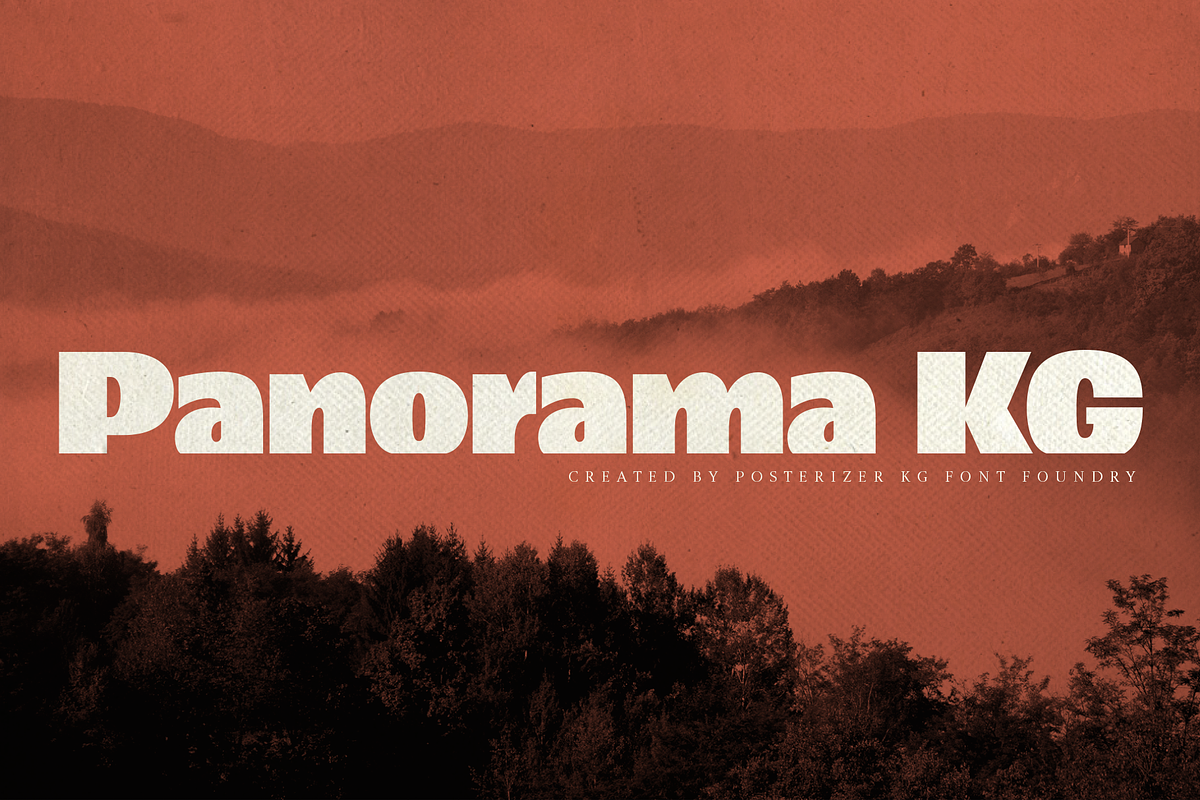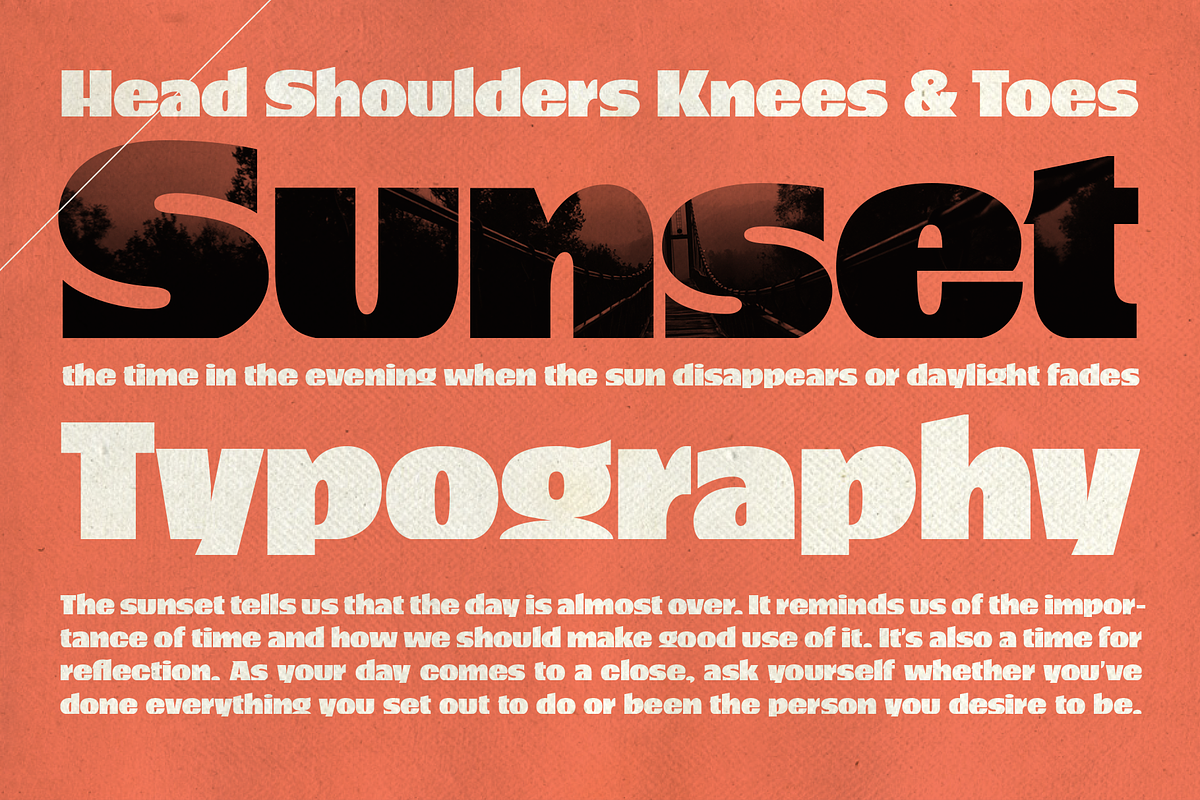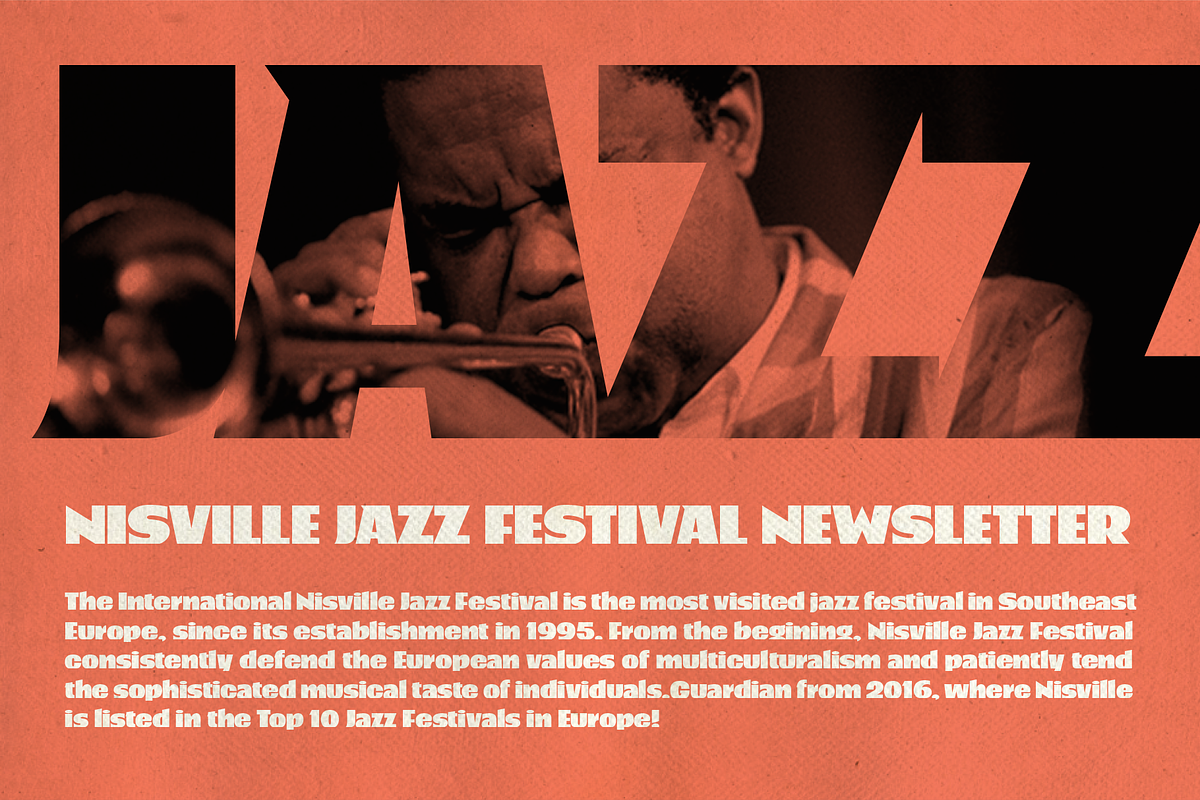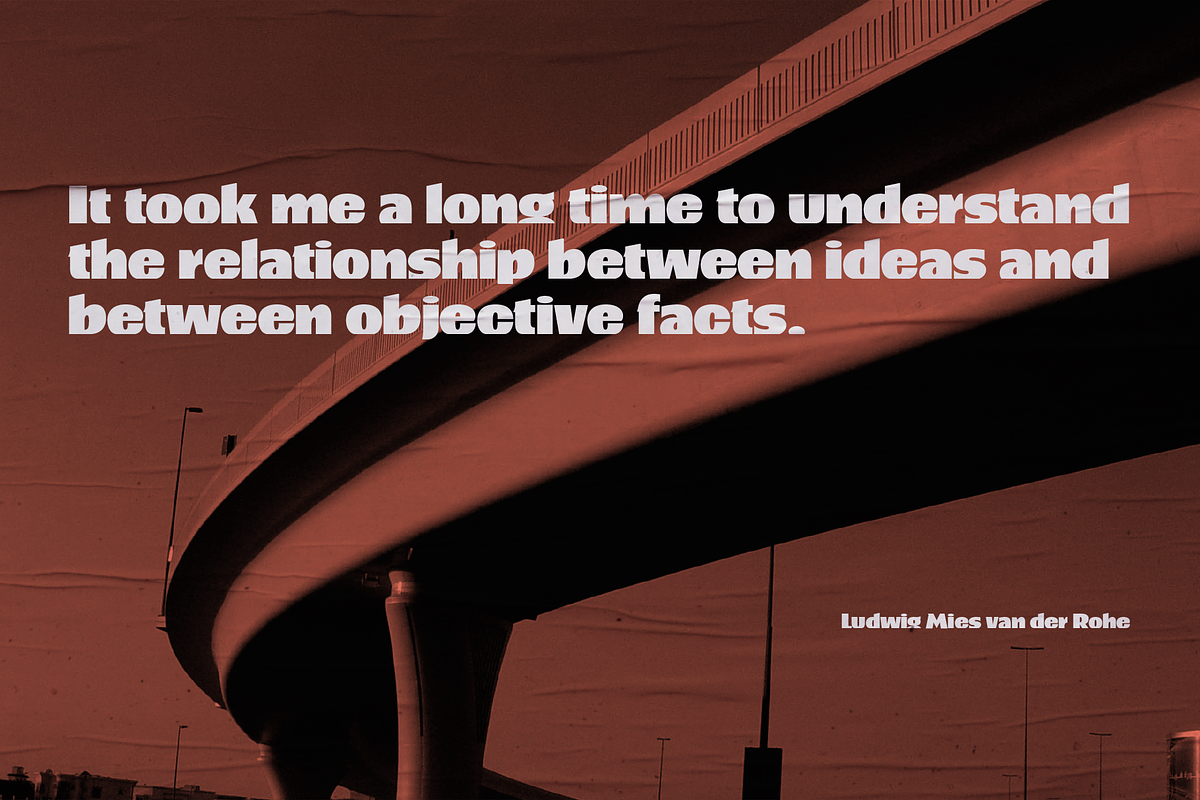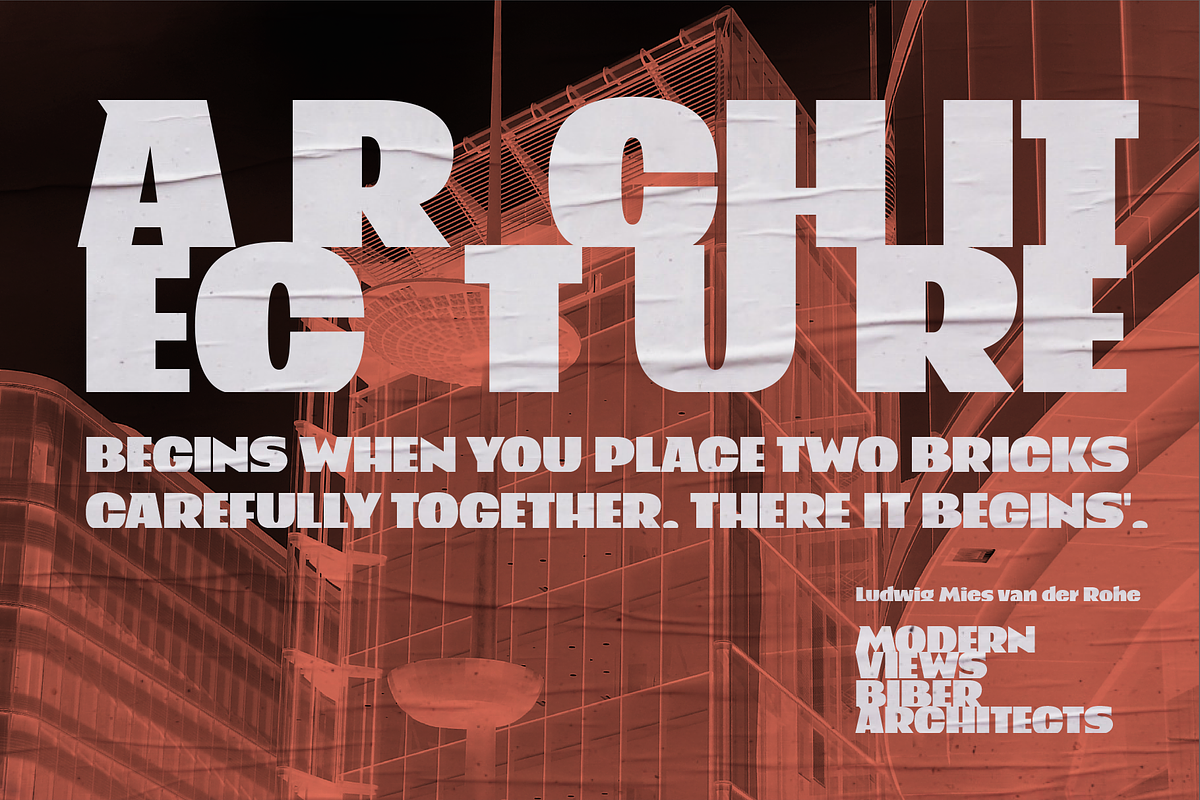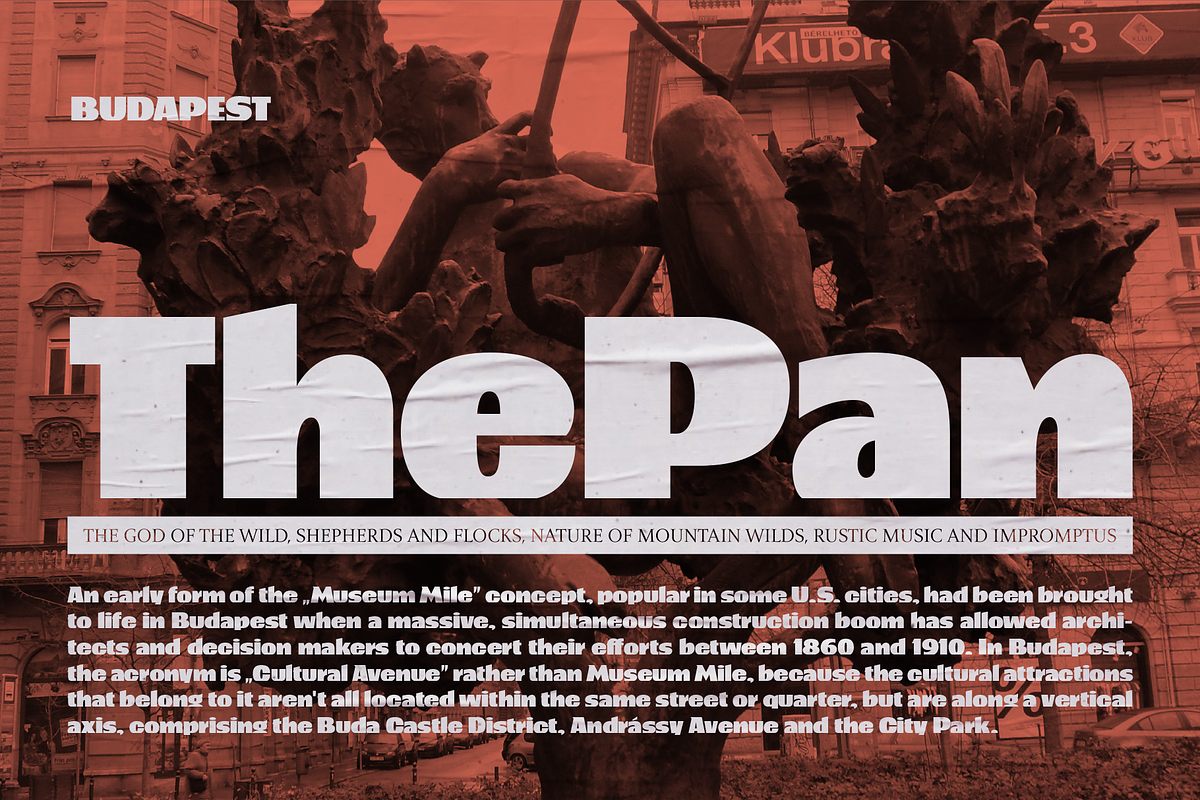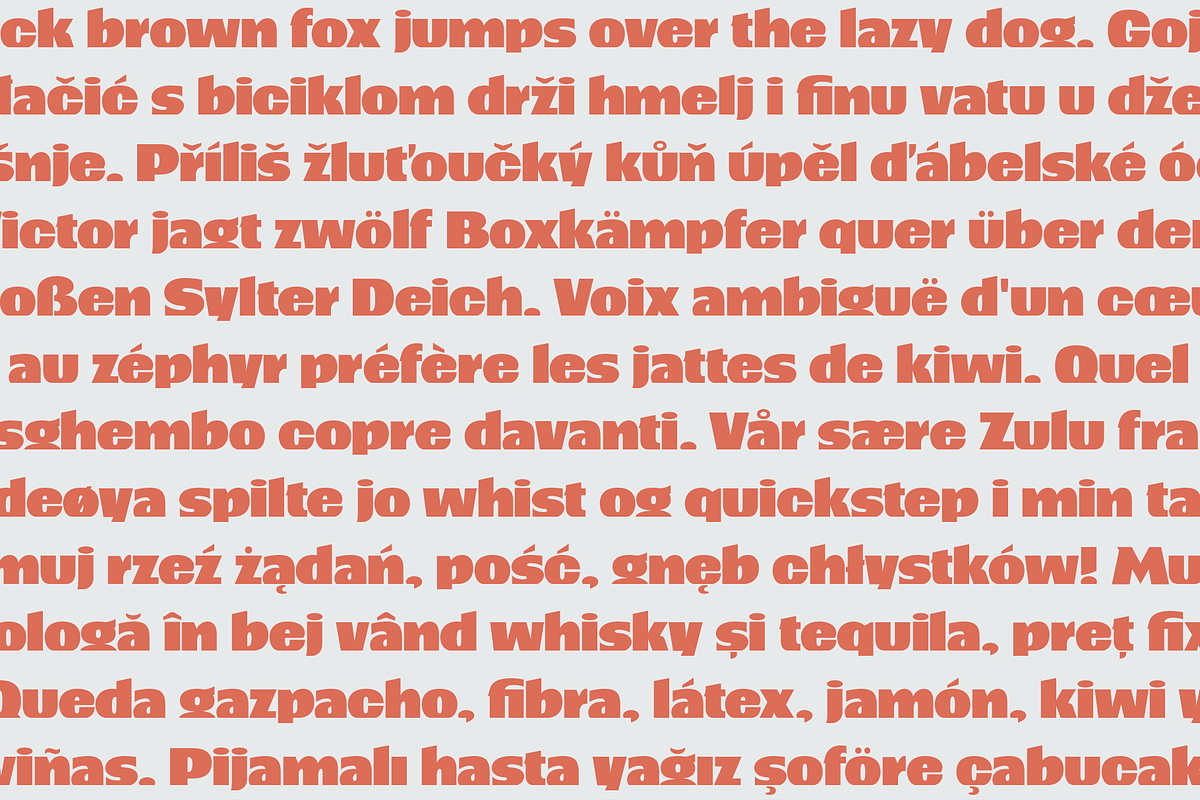
Panorama KG
Panorama KG is a black display font. The starting idea was to design letters that stand on the horizon. For that reason, the descenders are extremely short, and the elements of the letters lying on the base line are cutten, the horizontal strokes are lowered ... These characteristics should reduce the spacing and emphasize the compactness of densely composed titles and shorter text forms. Panorama KG was designed specifically for headlines, logotypes, branding, and similar applications... Due to the characteristics that are in function only in the bold version, it did not make sense to make more styles or family, but Panorama KG can be combined with many other serif and sans serif typefaces.